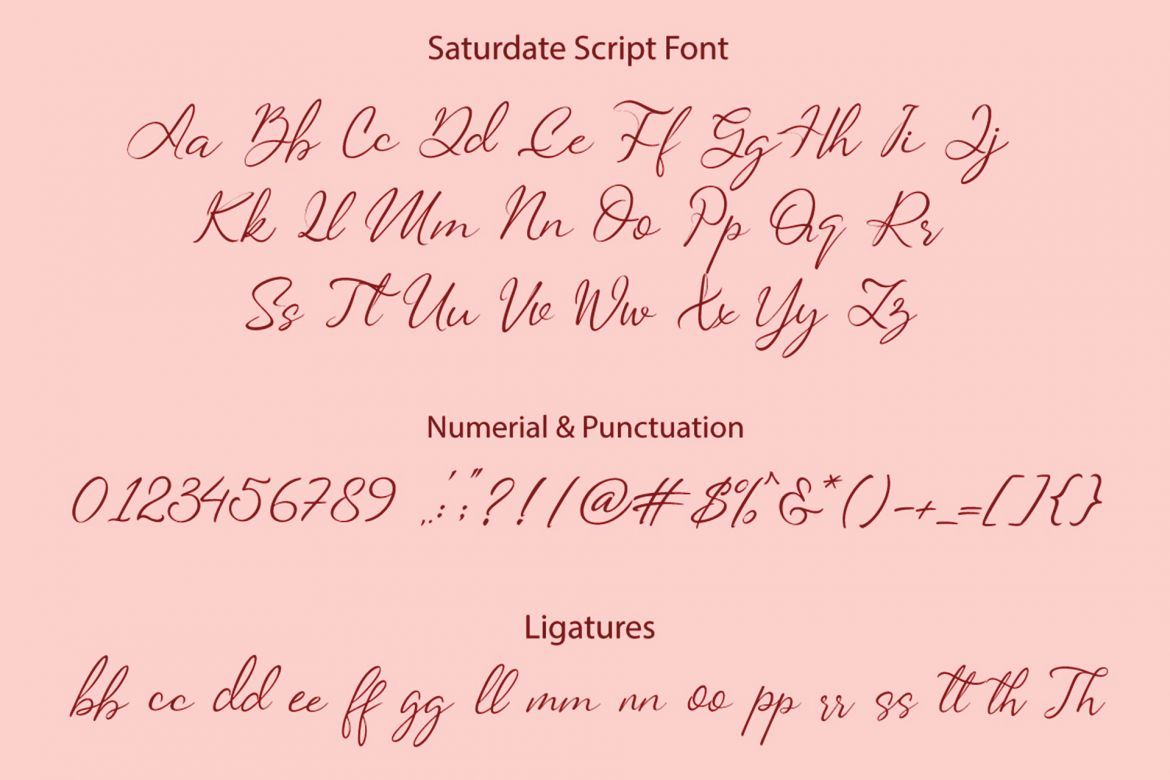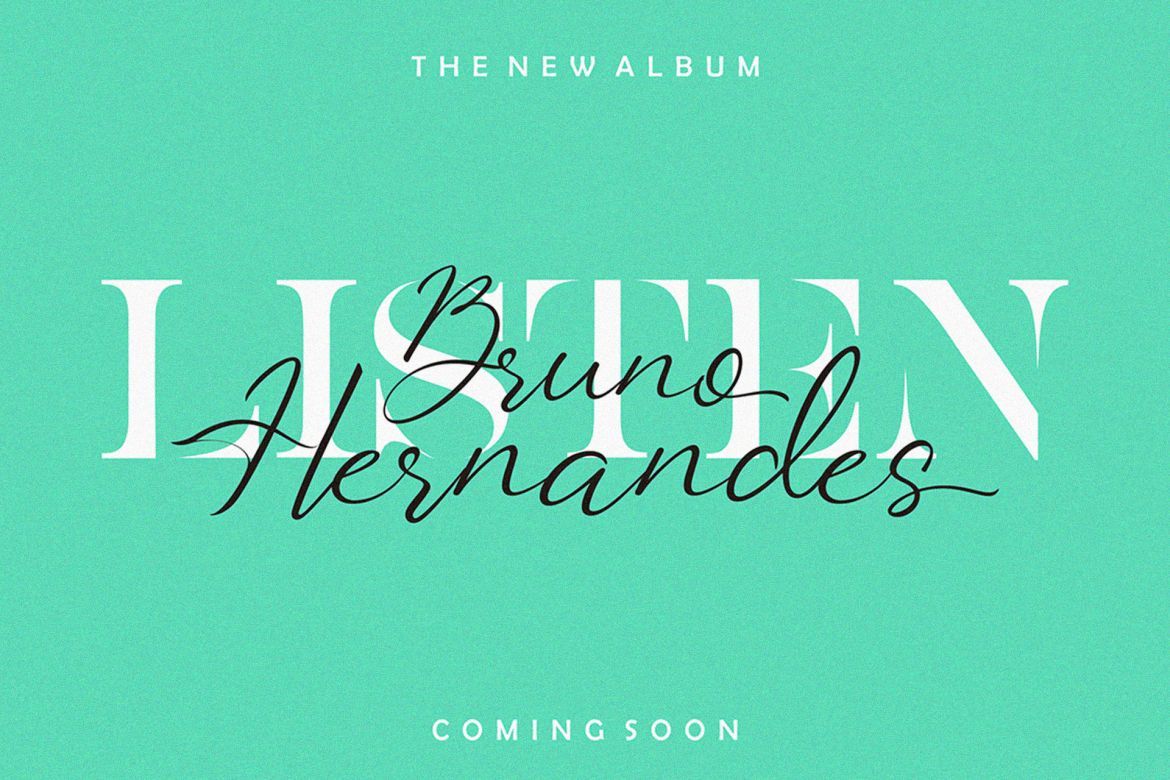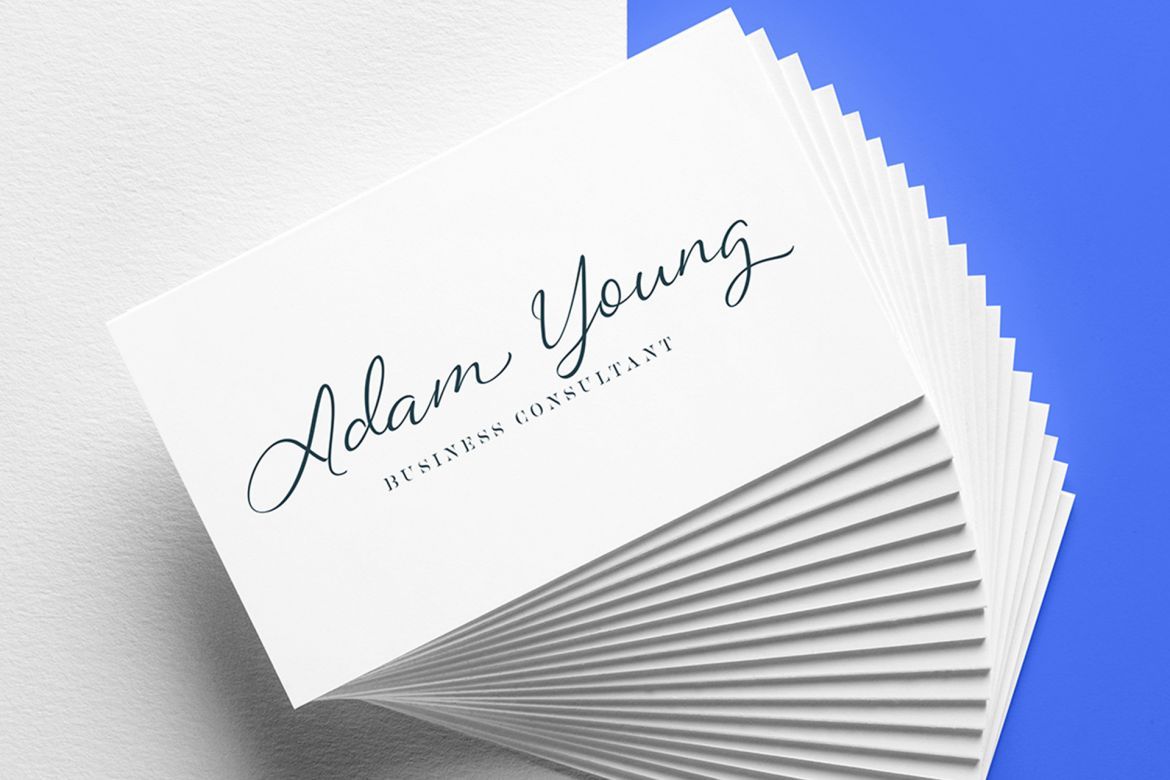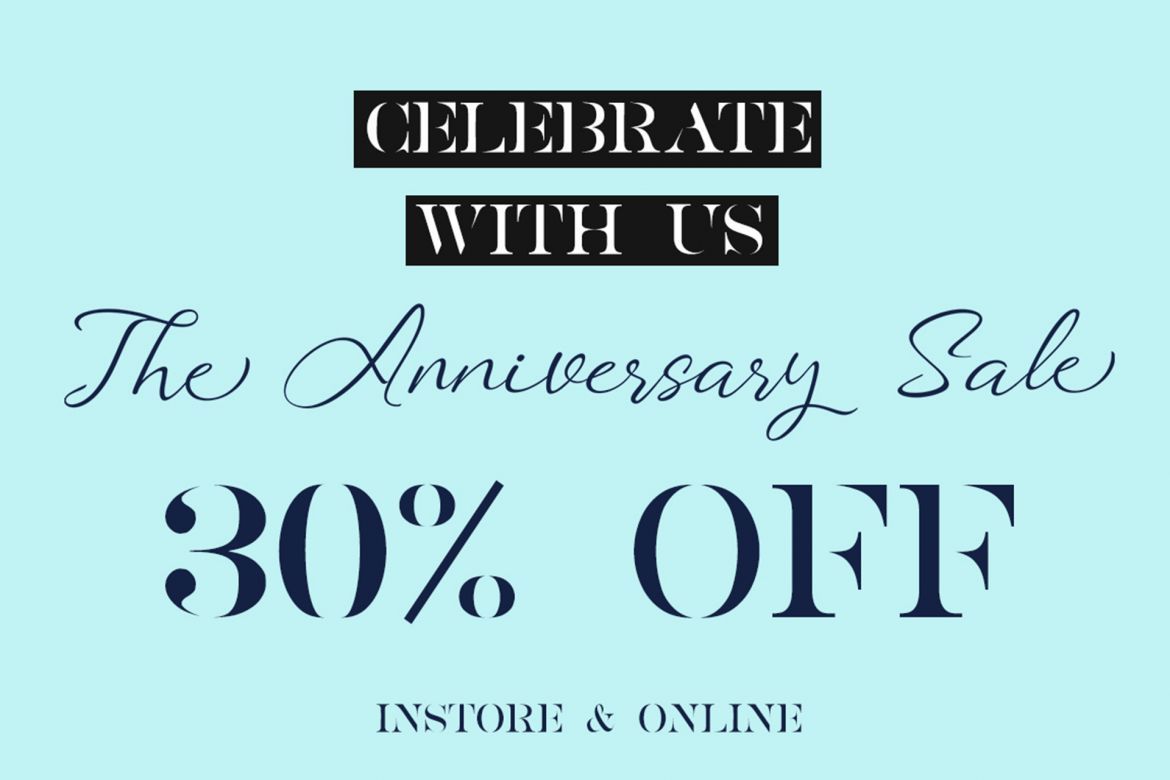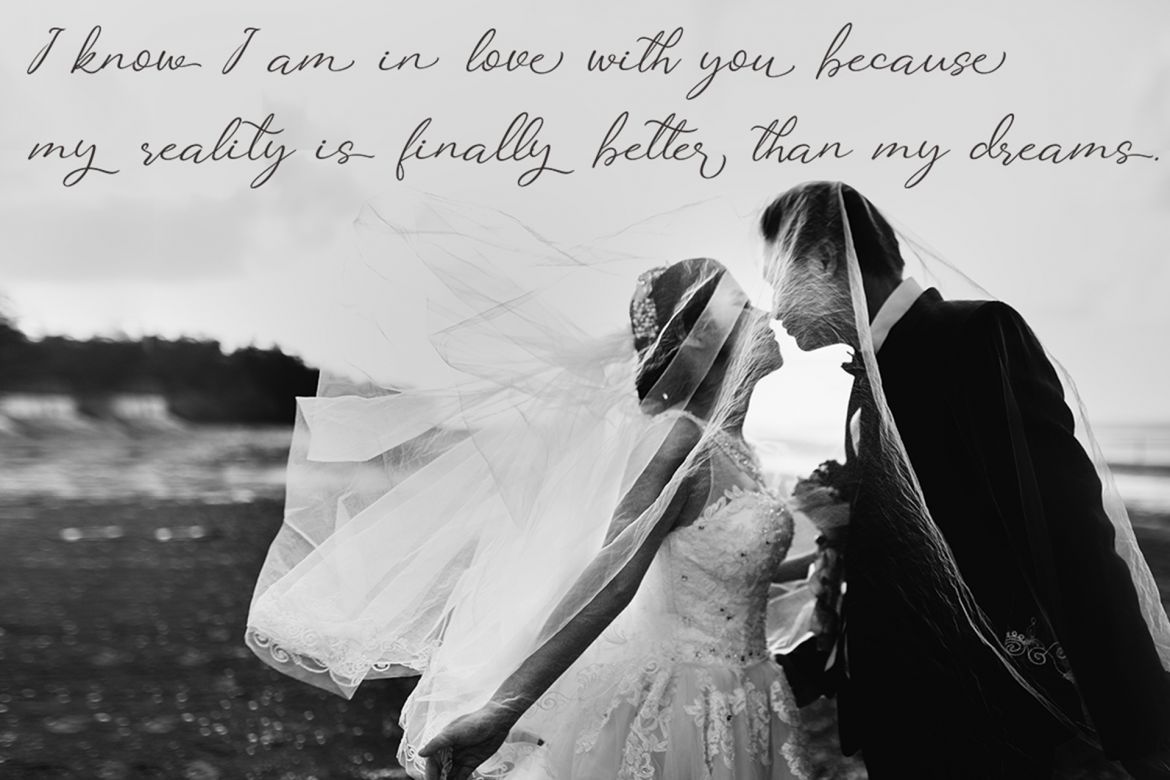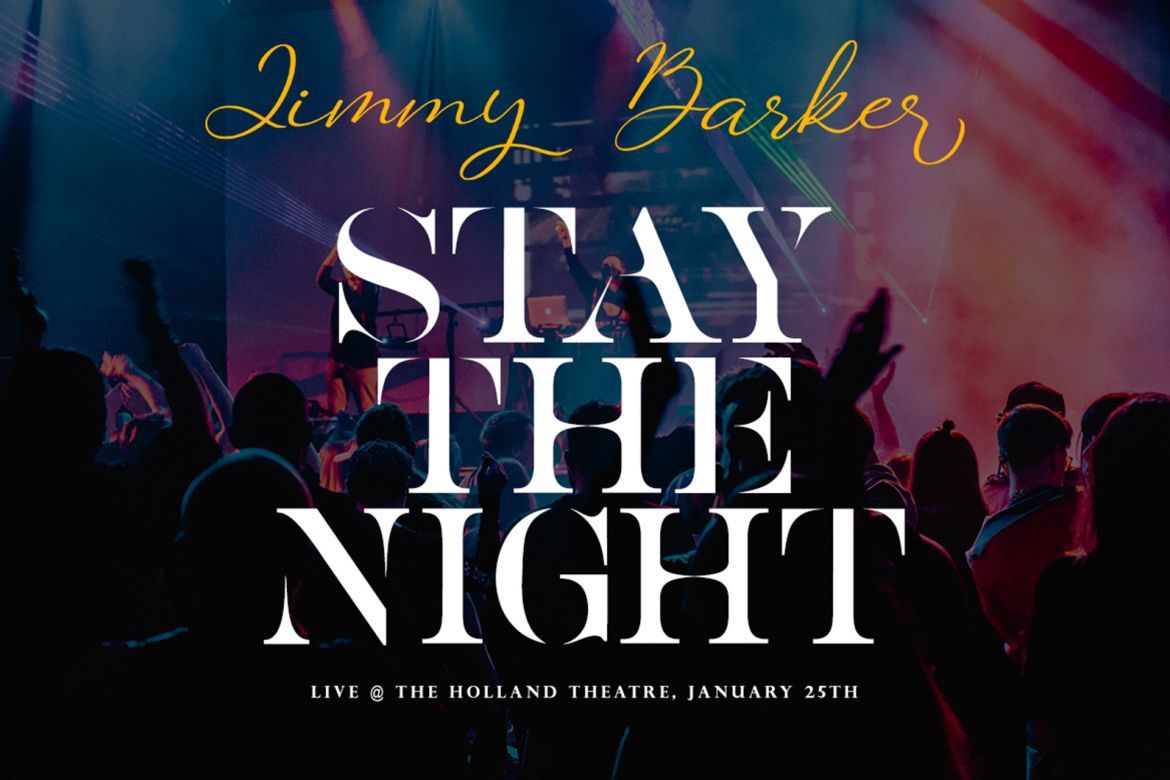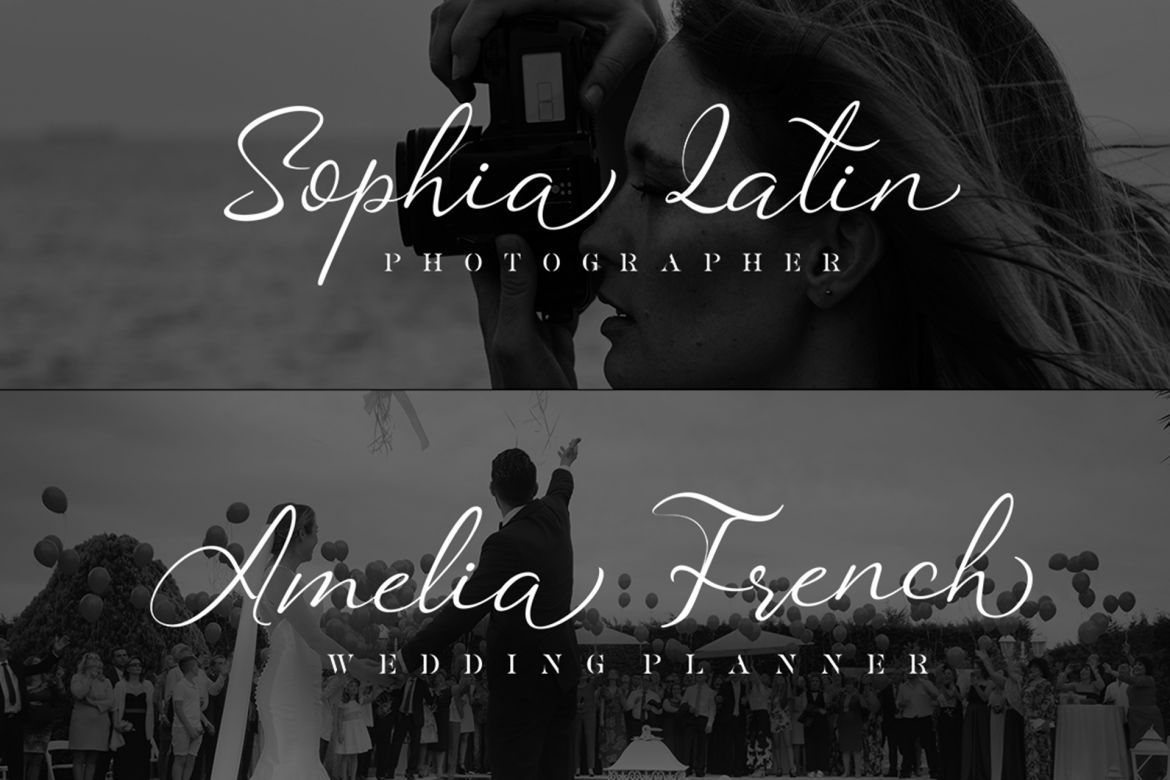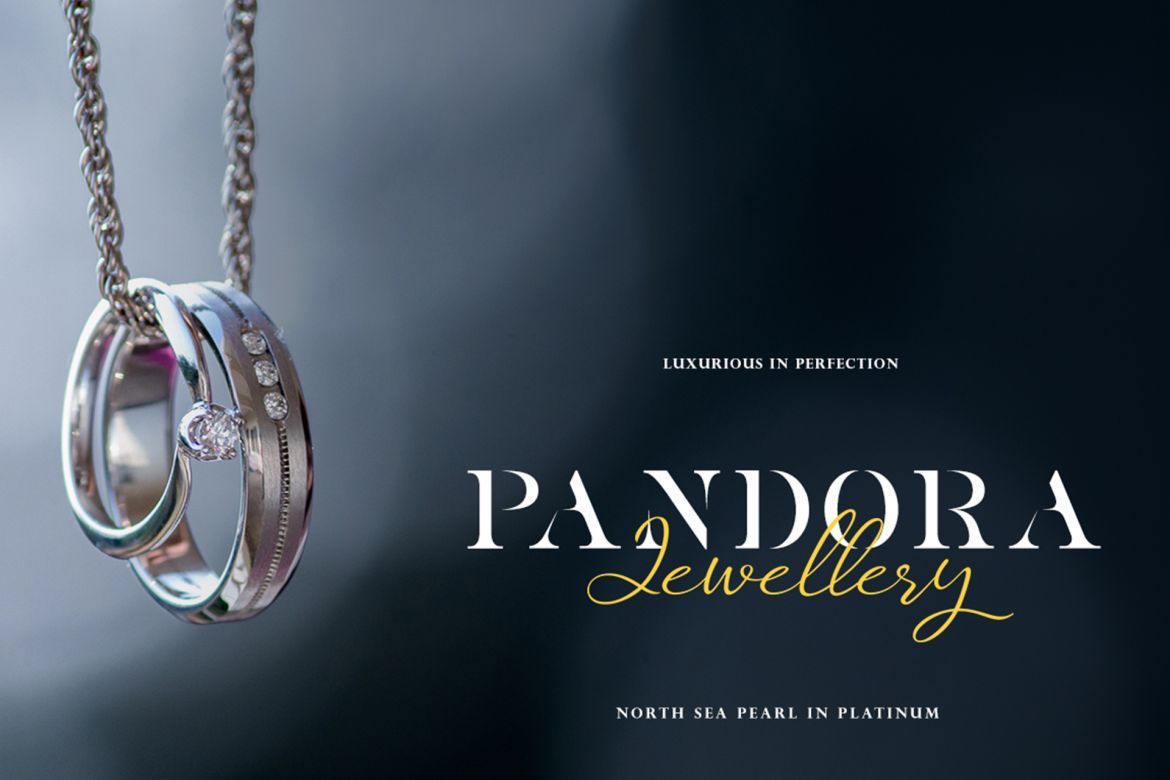
Saturdate Font Duo
The Saturdate is a font duo with a simple and classy taste. It includes a signature, and an all caps bold serif version.
This classy duo is easy to use and has a great readability. It can be used for watermarks, signature logos, album covers, business cards, quotes, and much more!
• each font has stylish handwritten style
• elegant font duo